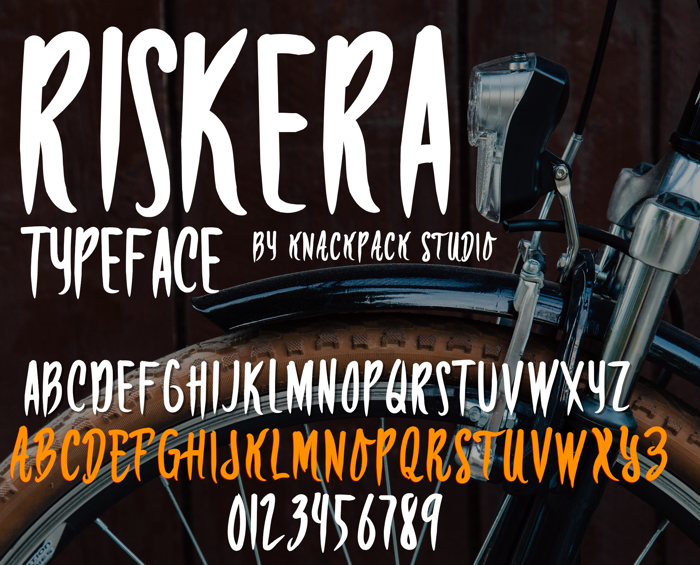
RISKERA DEMO Font
RISKERA
- Clean handwriting inspired font perfect on your school projects, covers, etc.
- Lifestyle handmade font for branding, website, mobile app etc.